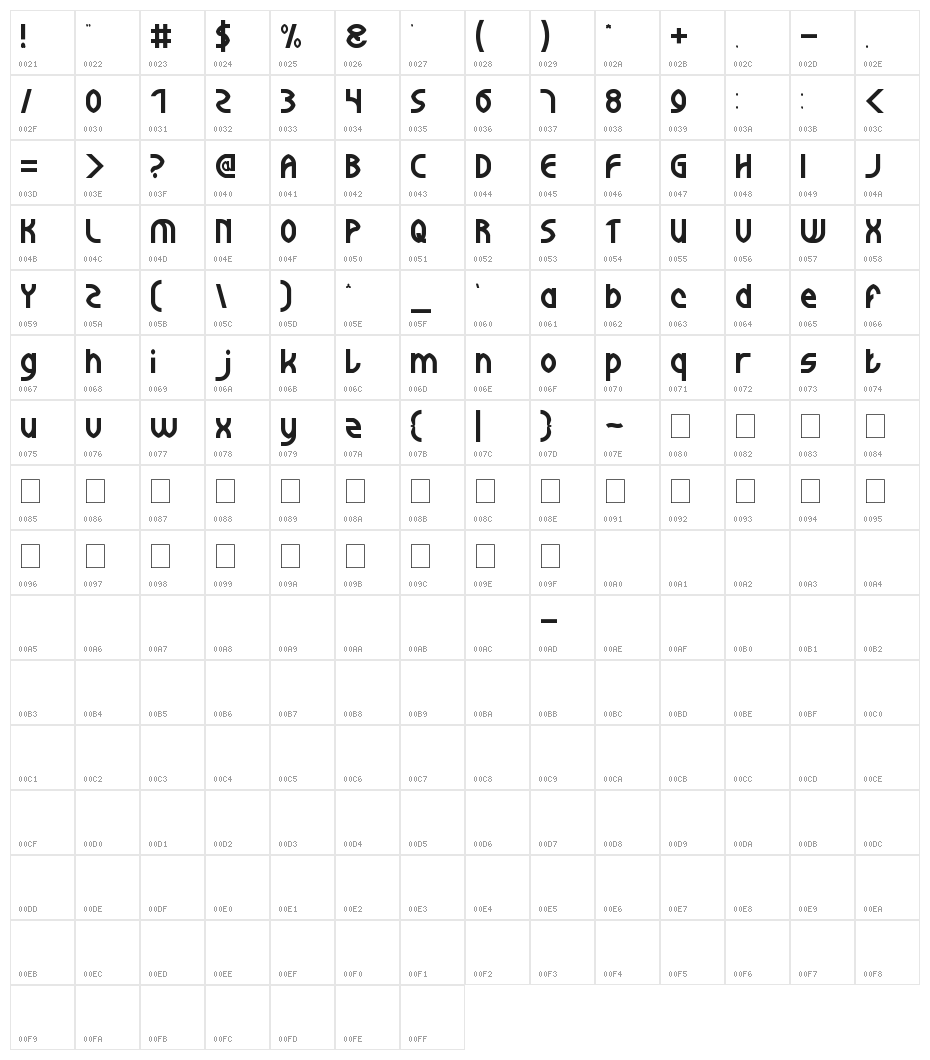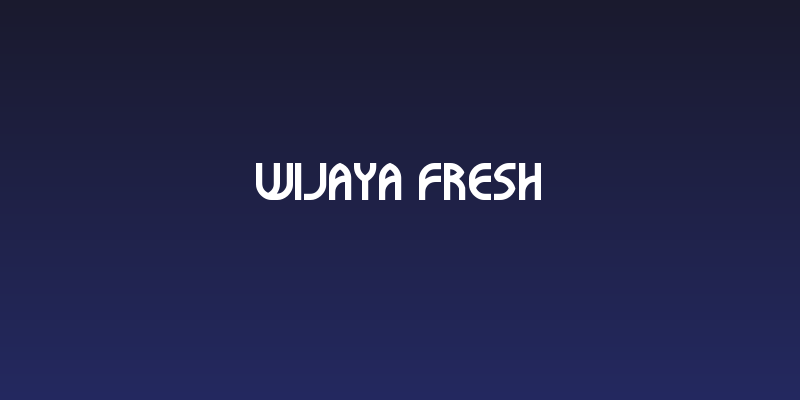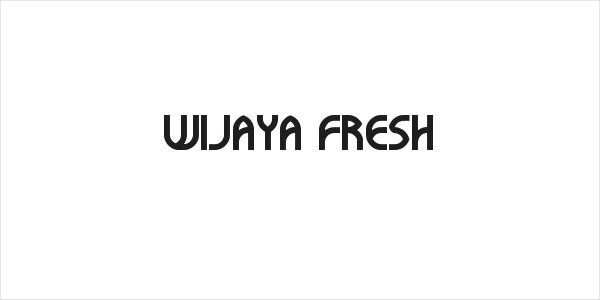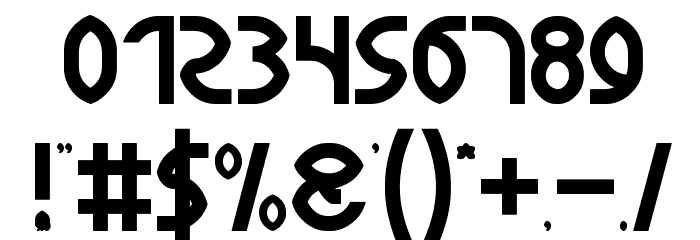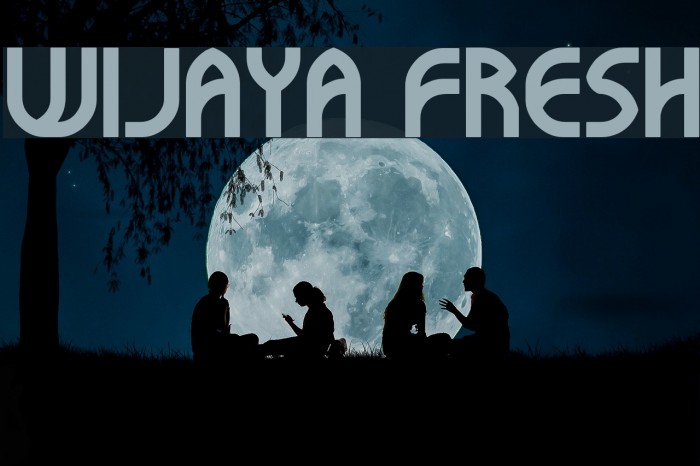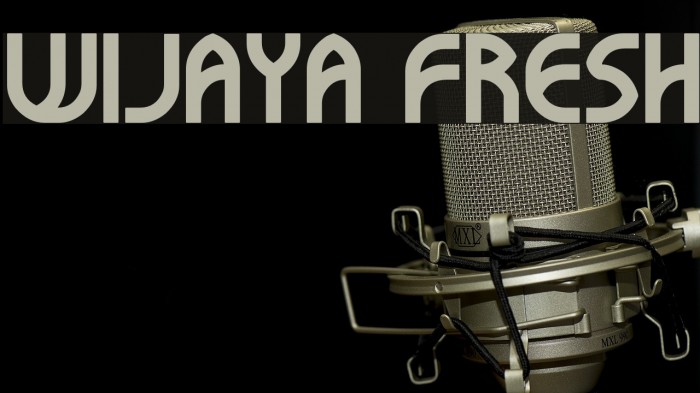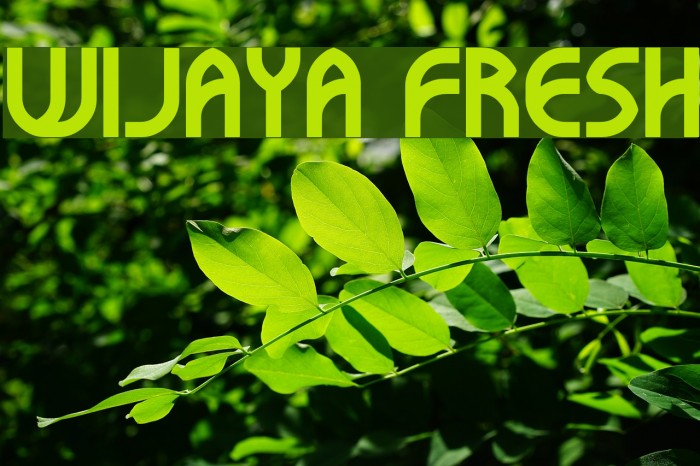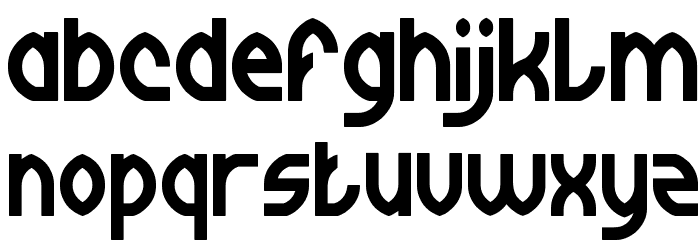
WIJAYA FRESH Font
This font features a bold and modern design with a unique geometric style. The characters are crafted with rounded edges and a consistent stroke width, giving it a sleek and contemporary appearance. The uppercase and lowercase letters maintain a uniform height, contributing to a harmonious and balanced look. The numerals and special characters are designed to match the overall aesthetic, ensuring a cohesive visual experience. This font is ideal for projects that require a modern and clean typeface with a touch of uniqueness.
| Proposed Projects | Ideal for branding, advertising, modern web design, and editorial layouts. |